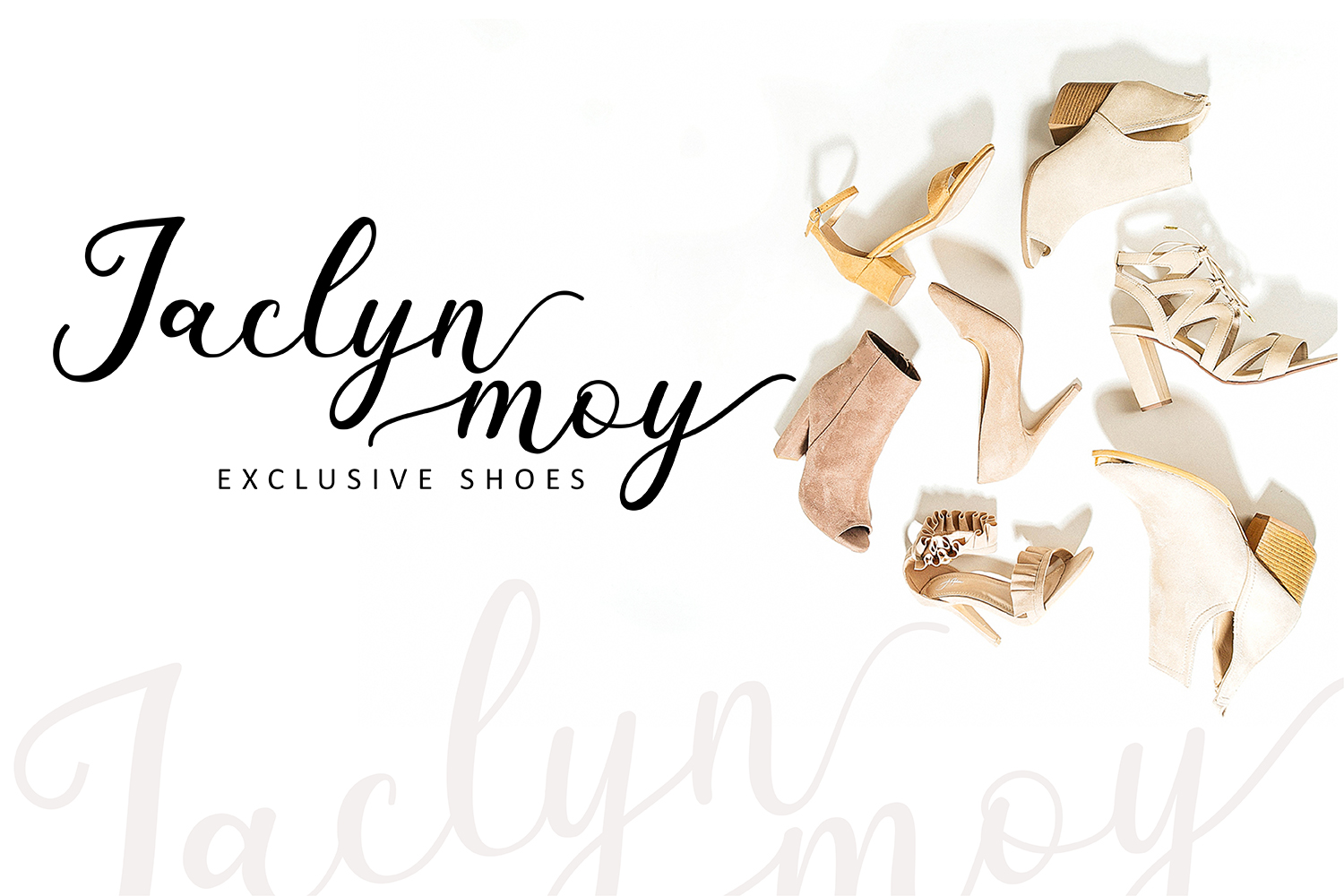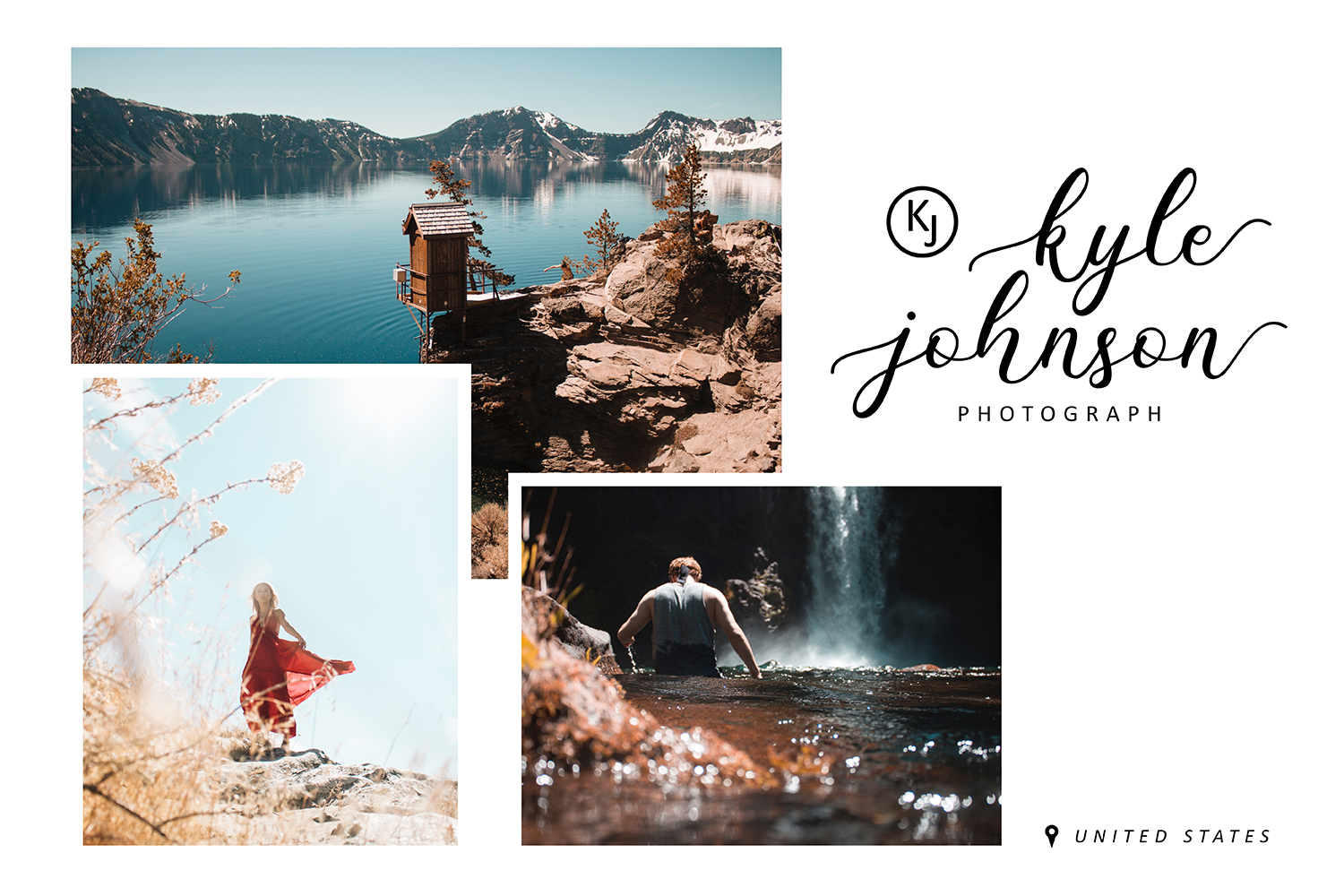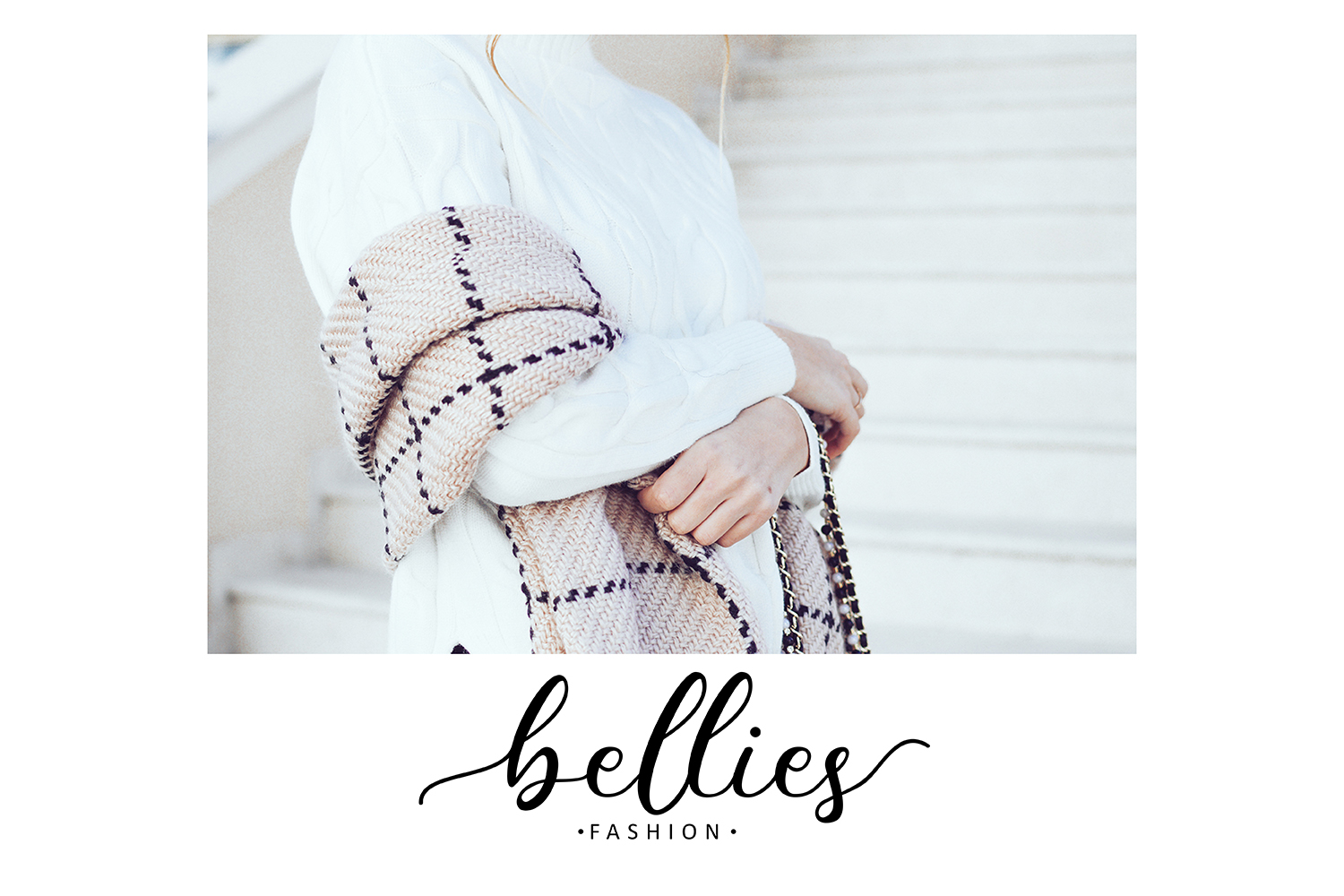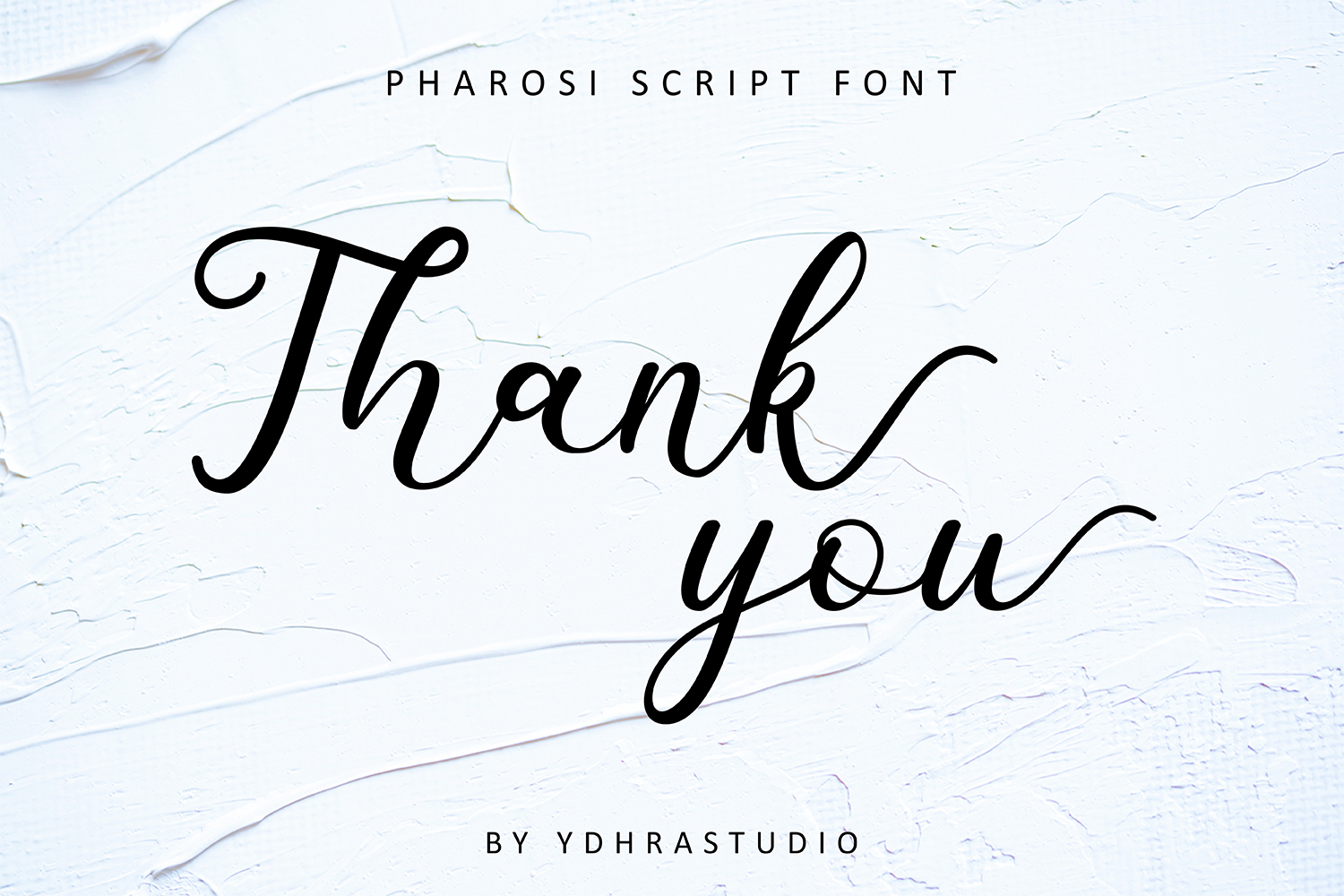
Pharosi Free Font
Pharosi Free Font is a modern calligraphy font. Pharosi Font was built with OpenType features which include beginning and ending swashes, numbers, punctuation, alternates, and ligatures. Pharosi Font is great for design projects, including logos, branding, wedding designs, social media posts, advertisements & more product designs. Mix and match the alternate characters to add an attractive message to your design. This free typeface was designed by a talented Yudha Ageng. If you like it don’t forget to check out the full version.